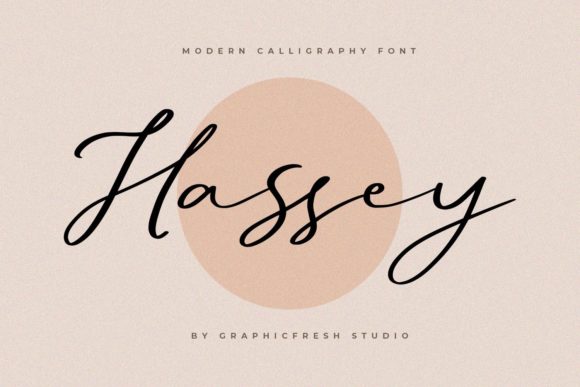
Hassey Font
Introducing Hassey Font — the script font that's sure to captivate your audience with its modern elegance and enchanting allure. Dive into a world of beauty, where your words and designs dance gracefully upon the page, leaving a lasting impression on all who behold them.
Hassey's delicate strokes and flowing curves embody the essence of femininity and sophistication. Each letter is crafted with meticulous care, exuding a sense of charm and playfulness that will add a touch of magic to any project. Whether you're crafting invitations, designing logos, or creating social media posts, Hassey will effortlessly elevate your creations.
Step into a realm of limitless creativity with Hassey, where your imagination takes center stage. Its versatility knows no bounds, adapting seamlessly to a myriad of styles and themes. Whether you're drawn to the allure of vintage charm, the sleekness of modern design, or the whimsical touch of hand-lettering, Hassey is your perfect companion.
Indulge in the beauty of Hassey's natural flow and organic rhythm. Its carefully balanced kerning and spacing ensure effortless readability, while its subtle variations in stroke width add depth and dimension to your text. Experience the joy of crafting words that feel like a gentle caress, inviting your audience to immerse themselves in your message.
Crafted by the talented Graphicfresh, Hassey is a font that speaks to the heart. Its elegant simplicity and timeless appeal make it a must-have for any creative arsenal. Embrace the endless possibilities that await you and unlock the true power of typography with Hassey.